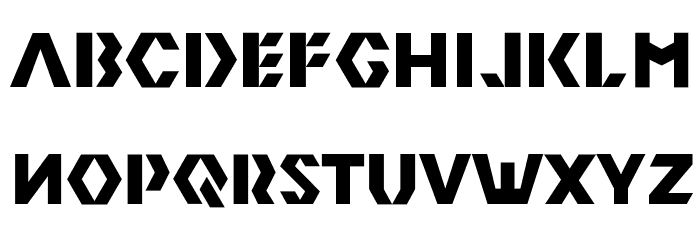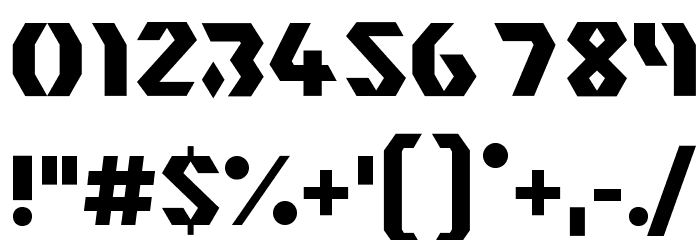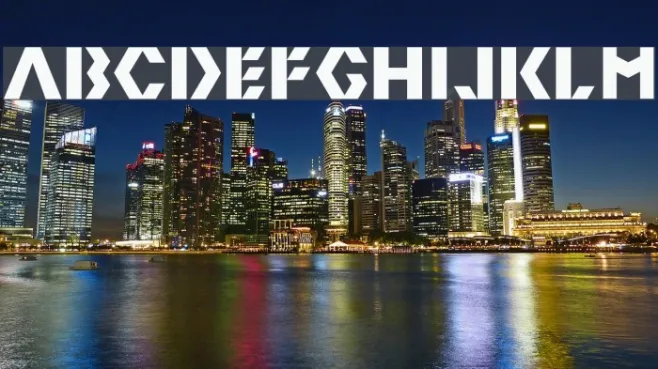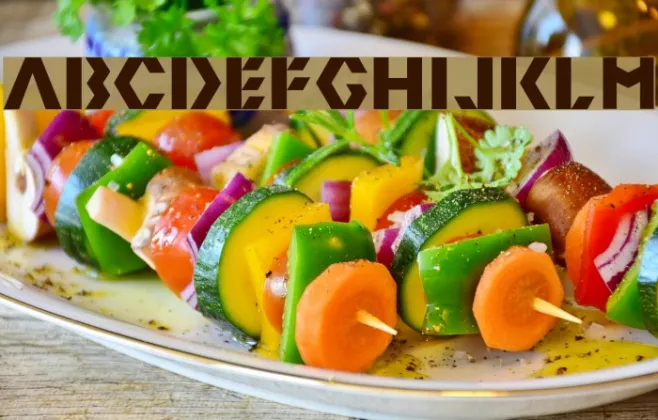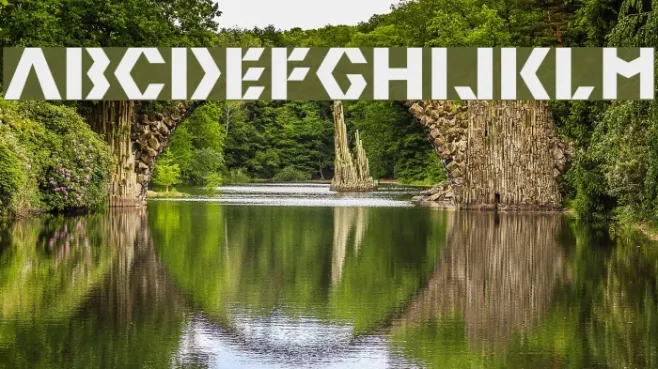
Radio Edit P3 Font
This font features a bold, geometric design with sharp angles and a futuristic aesthetic. Each character is constructed with a series of straight lines and angular cuts, giving it a distinct, edgy appearance. The uppercase and lowercase letters maintain a consistent style, emphasizing symmetry and uniformity. Numbers and special characters are designed to match the angular theme, ensuring a cohesive look across all glyphs. The font's unique style makes it stand out, ideal for projects that require a modern and bold statement.
- Proposed Projects: Ideal for branding, posters, album covers, and any project needing a modern, edgy look.